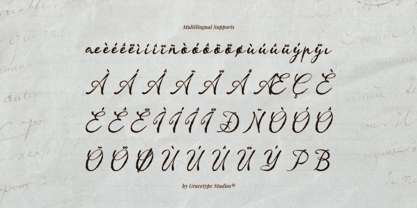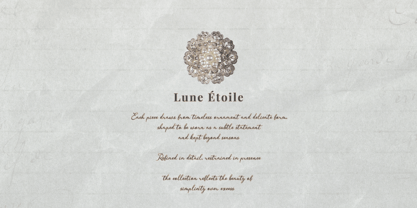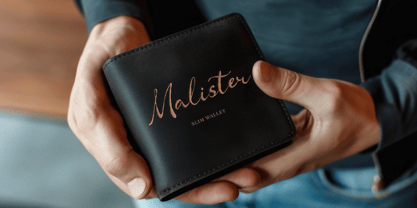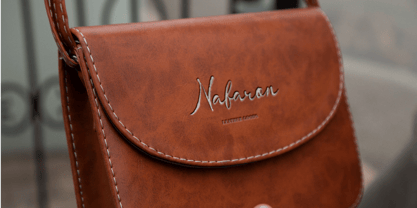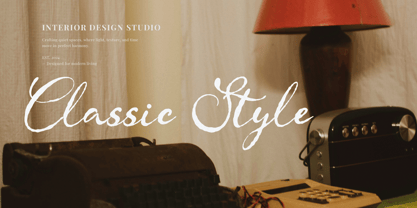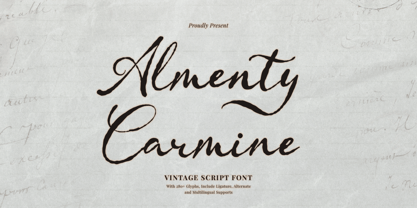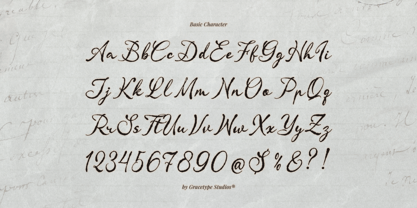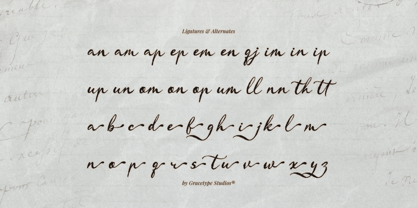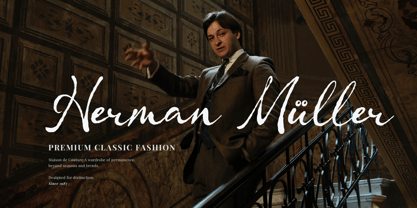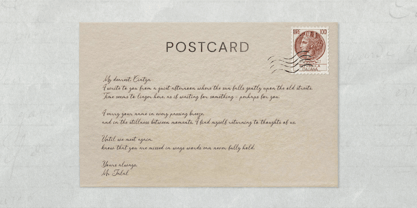
Almenty Carmine
Almenty Carmine | Vintage Script Font, from Gracetypestudio, suitable for any projects such as: logos, branding projects, homeware designs, product packaging, mugs, quotes, posters, shopping bags, t-shirts, book covers, name card, invitation cards, greeting cards, label, photography, watermark, special events, and all your other lovely projects that need a Script taste.